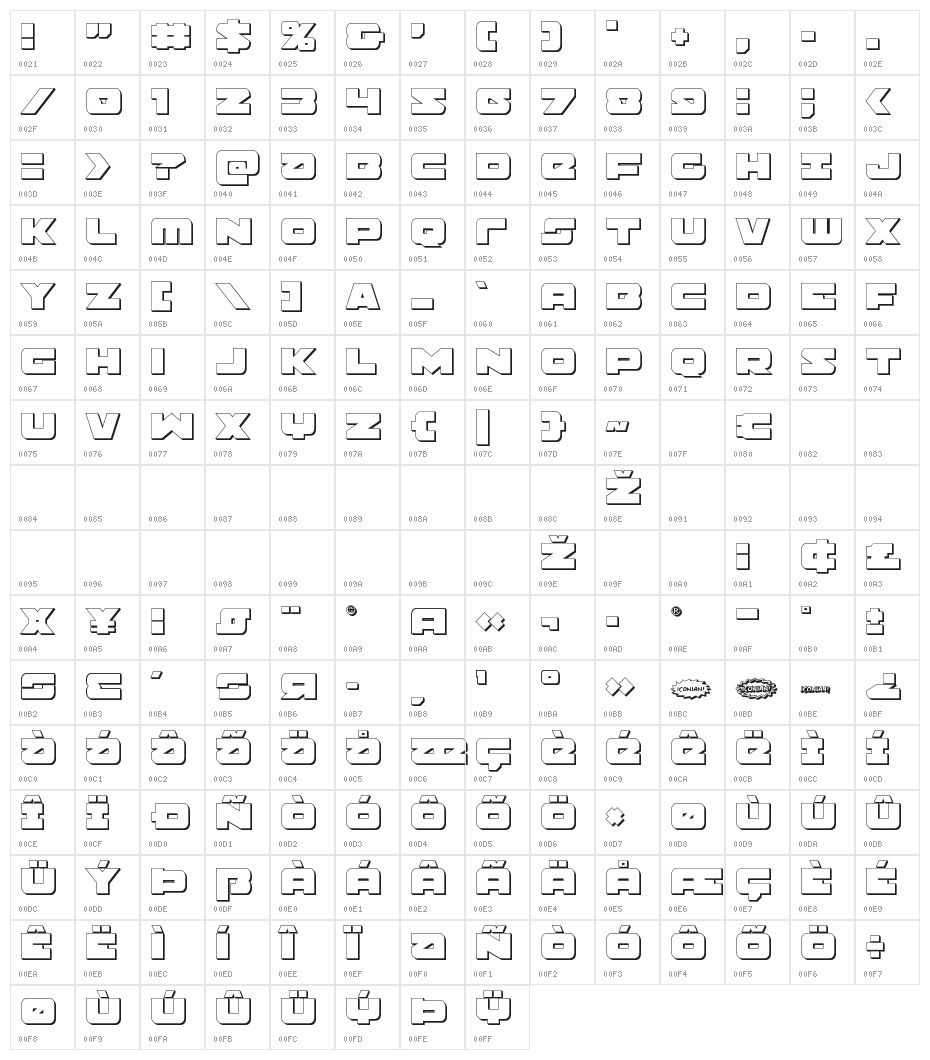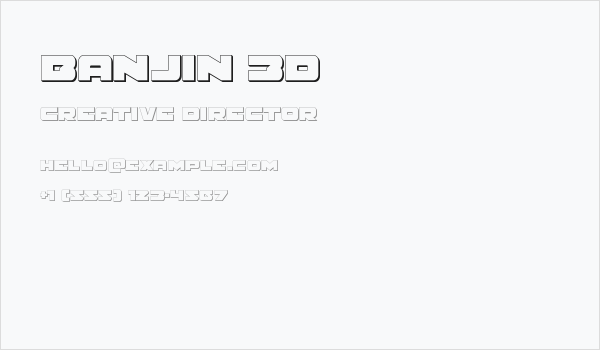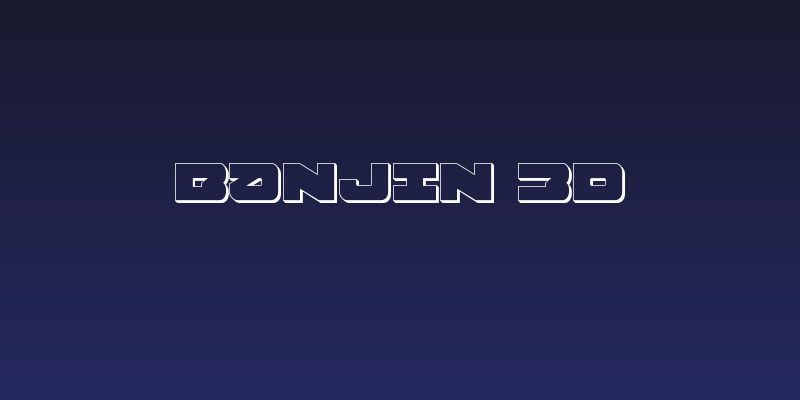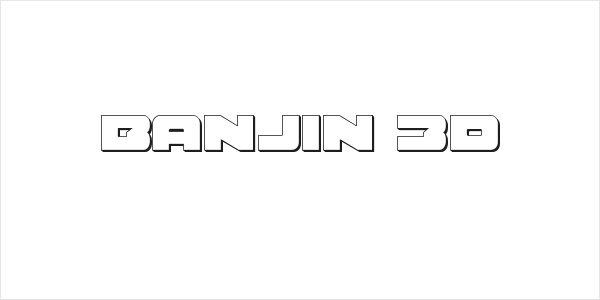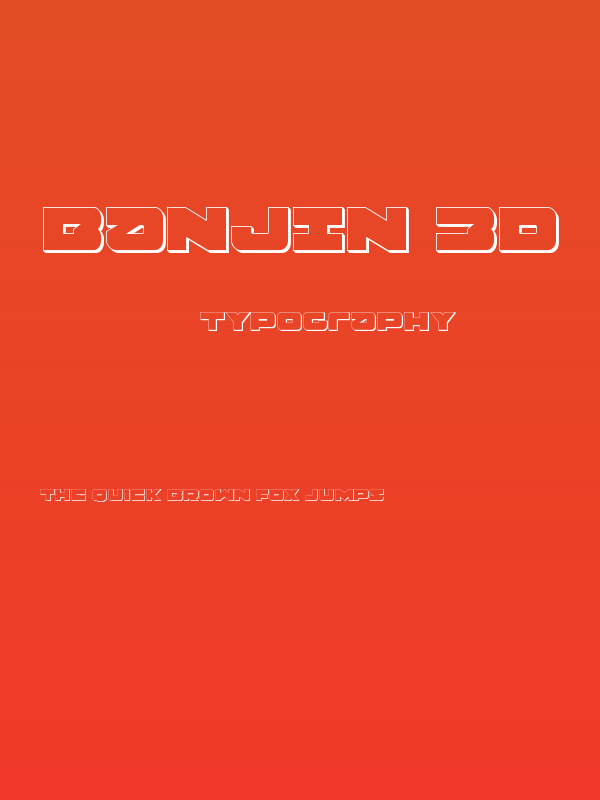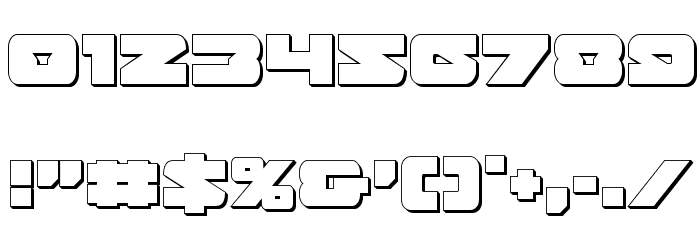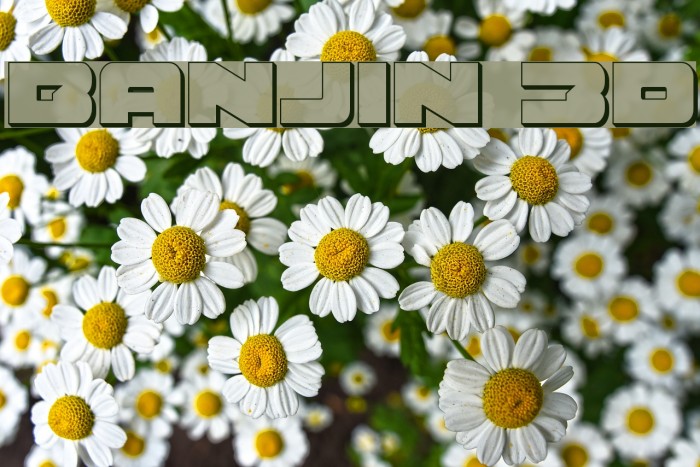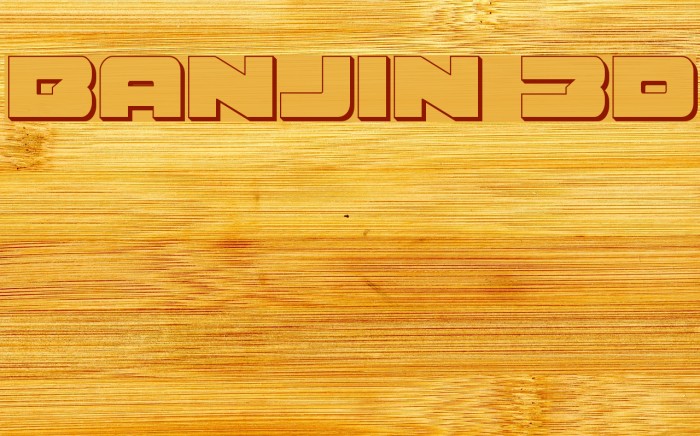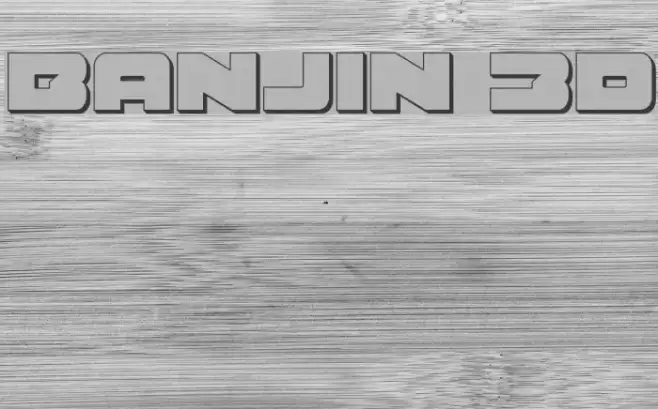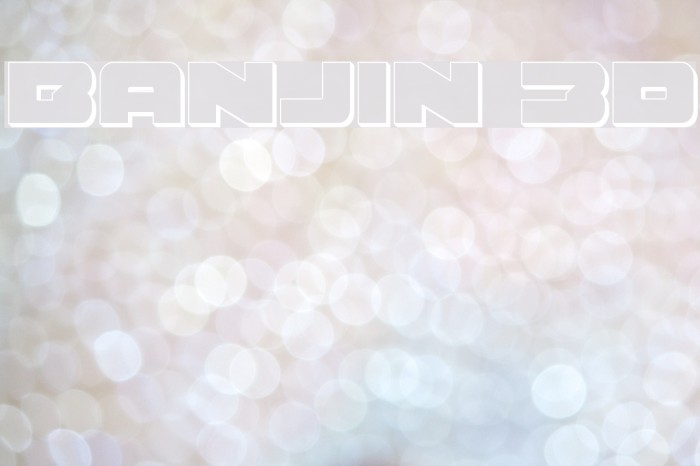
Banjin 3D Font
Banjin 3D Description
This font features a bold, three-dimensional appearance with a strong geometric structure. The characters are outlined, giving them a distinct shadow effect that enhances their 3D look. Each letter is crafted with sharp angles and straight lines, creating a futuristic and industrial feel. The uppercase and lowercase letters maintain a consistent style, while the numbers and special characters complement the overall design. The font's unique style makes it stand out, ideal for projects that require a modern and eye-catching typeface.
| Proposed Projects | Ideal for video game titles, tech branding, sci-fi posters, and modern advertisements. |